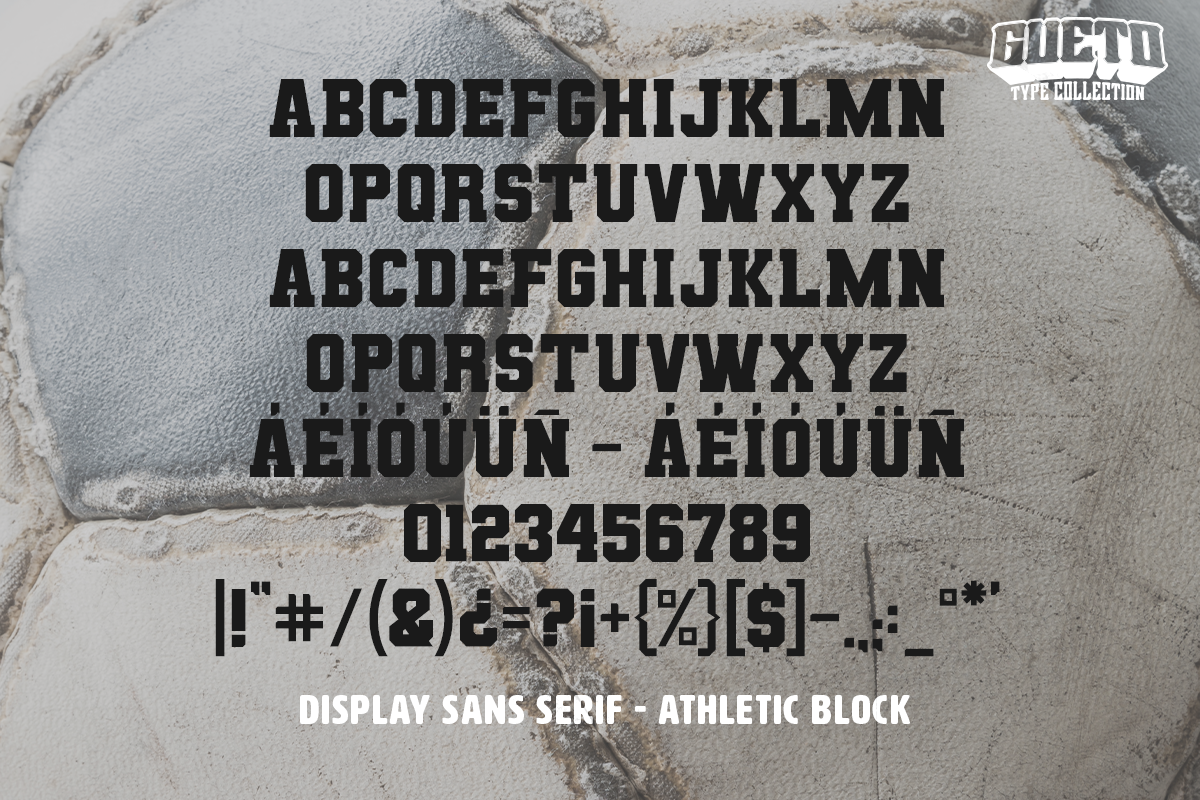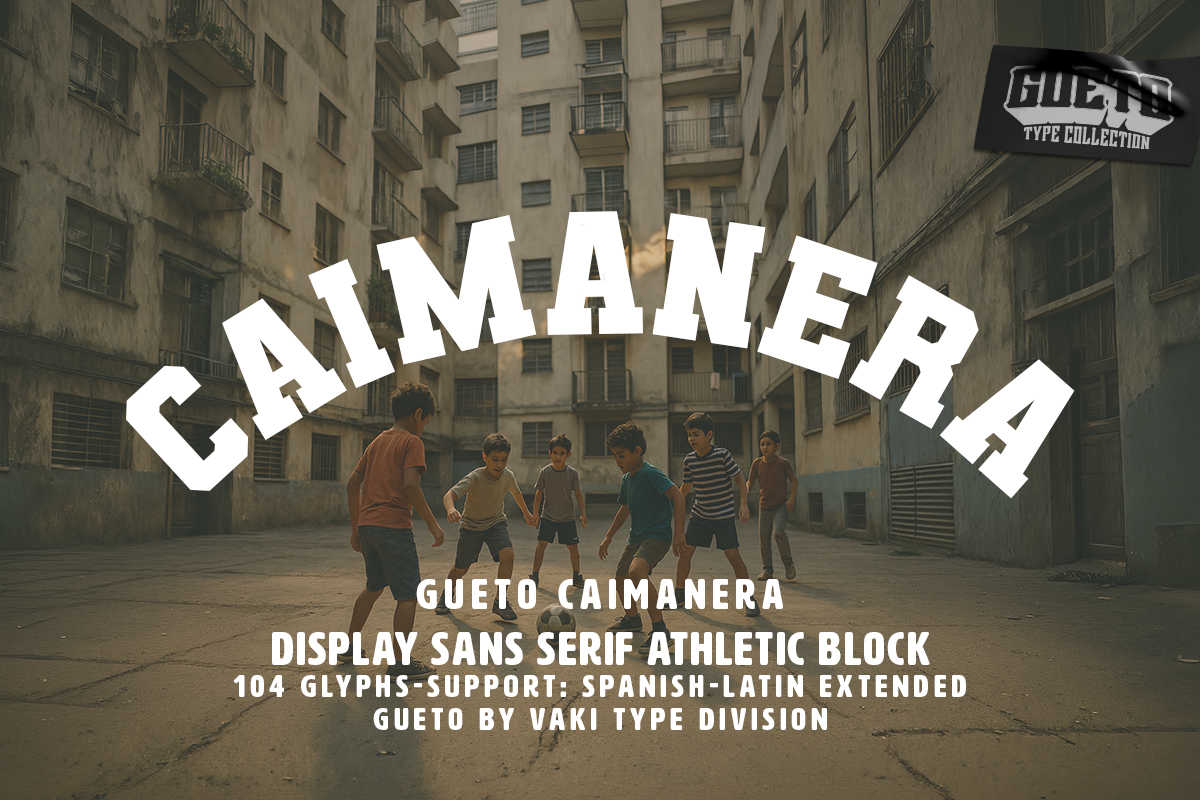
CAIMANERA
CAIMANERA is a tribute to Venezuelan street culture improvised games, informal courts and identity built from the ground up. A varsity display font with cultural energy and a raw, authentic presence.
Style: Display Sans Serif · Athletic Block / Varsity
Glyphs: 104 · All Caps
Support: Spanish-Latin Extended
GUETO Underground Varsity Type System by Vaki. A typographic system built from underground academic aesthetics, social tension and identity-driven visual language.